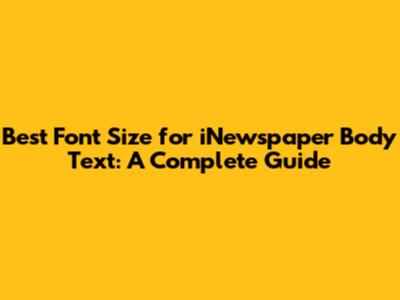
Choosing the right font size for the body text of your iNewspaper is super important. It’s not just about making things look pretty; it’s about making sure your readers can actually, you know, read what you’ve written without squinting or getting a headache. Let's dive into why this matters and how to nail it.
Why Font Size Matters
Readability is Key. The primary goal of any written content, especially in an iNewspaper, is to communicate effectively. If your font size is too small, readers will struggle, and they might just give up. Too large, and it looks like you're shouting at them or wasting space. The sweet spot ensures a comfortable reading experience, encouraging people to stick around and engage with your content.
Accessibility for All. Think about your audience. Not everyone has perfect vision. Some readers might be accessing your iNewspaper on smaller devices, while others may have visual impairments. Using an appropriate font size makes your content accessible to a broader range of readers, showing you care about their experience. It’s about inclusivity, guys! Making your content accessible improves user experience which in turn increases readership.
Professional Appearance. The appearance of your iNewspaper reflects your brand and credibility. A well-chosen font size contributes to a polished, professional look. It shows you've paid attention to detail and care about the overall presentation. A sloppy layout with inconsistent or hard-to-read text can make your publication look amateurish, even if the content is top-notch.
Engagement and Time on Page. When readers find your content easy to read, they’re more likely to spend more time on the page. This increased engagement can lead to higher readership, more shares, and better overall performance for your iNewspaper. If your audience enjoys the reading experience, they're more likely to return for more. Keeping your readers engaged means they're more likely to share your content and become loyal followers.
SEO Benefits. Believe it or not, readability also indirectly affects your search engine optimization (SEO). Search engines like Google prioritize user experience. If your site has a high bounce rate because people can't read the text, it can negatively impact your search rankings. Making your content readable helps keep people on your page longer, signaling to search engines that your content is valuable and relevant.
Factors to Consider When Choosing Font Size
Alright, now that we know why it’s important, let’s talk about how to choose the right font size. There are several factors to keep in mind to ensure your iNewspaper is both readable and visually appealing.
Target Audience
Who are you writing for? A younger audience might be okay with slightly smaller fonts, especially if they're used to reading on digital devices. However, if your target audience includes older adults, you’ll want to lean towards larger, more readable sizes. Consider the average age and visual abilities of your readership when making your decision. It’s always better to err on the side of readability to accommodate everyone.
Typeface
The specific font you choose plays a huge role. Some fonts are naturally more readable at smaller sizes than others. For example, classic serif fonts like Times New Roman or Georgia tend to be readable even at smaller sizes, while some sans-serif fonts might require a bit more tweaking. Experiment with different fonts and sizes to see what works best for your content. Different typefaces have different x-heights and overall designs, which can affect readability.
Device Compatibility
These days, people read newspapers on all sorts of devices: smartphones, tablets, laptops, and desktops. Your chosen font size needs to be legible on all of them. Make sure to test your iNewspaper on different devices to see how the text appears. What looks great on a large desktop monitor might be too small on a smartphone screen. Using responsive design principles can help ensure your font sizes adjust appropriately for different screen sizes.
Content Type
The type of content you’re presenting also matters. For long-form articles, you might want a slightly larger font size to reduce eye strain. For shorter pieces or captions, you might be able to get away with something smaller. Consider the density of the text and how long readers will be engaging with it. Longer articles benefit from larger, more comfortable font sizes to prevent reader fatigue.
Line Height and Spacing
Font size isn’t the only thing that affects readability. Line height (the space between lines of text) and letter spacing also play crucial roles. Too little line height can make the text feel cramped and hard to read, while too much can make it feel disjointed. Experiment with different line heights and letter spacing to find a balance that makes the text easy on the eyes. A good rule of thumb is to use a line height that is 1.2 to 1.5 times the font size.